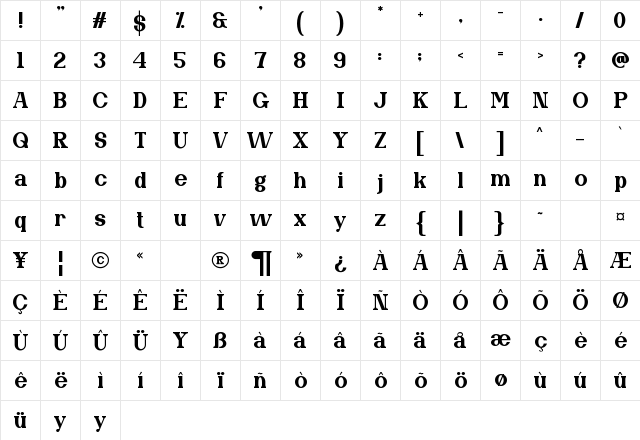
Frizen Land Regular Free Font
Frizen Land Regular
Designer: Maikohatta
Complete Frizen Land Regular glyph index. Displaying only characters natively supported by Frizen Land Regular font.
Design Context for Frizen Land
Frizen Land is a composed and adaptable typeface that performs quietly and consistently across a wide range of design contexts.